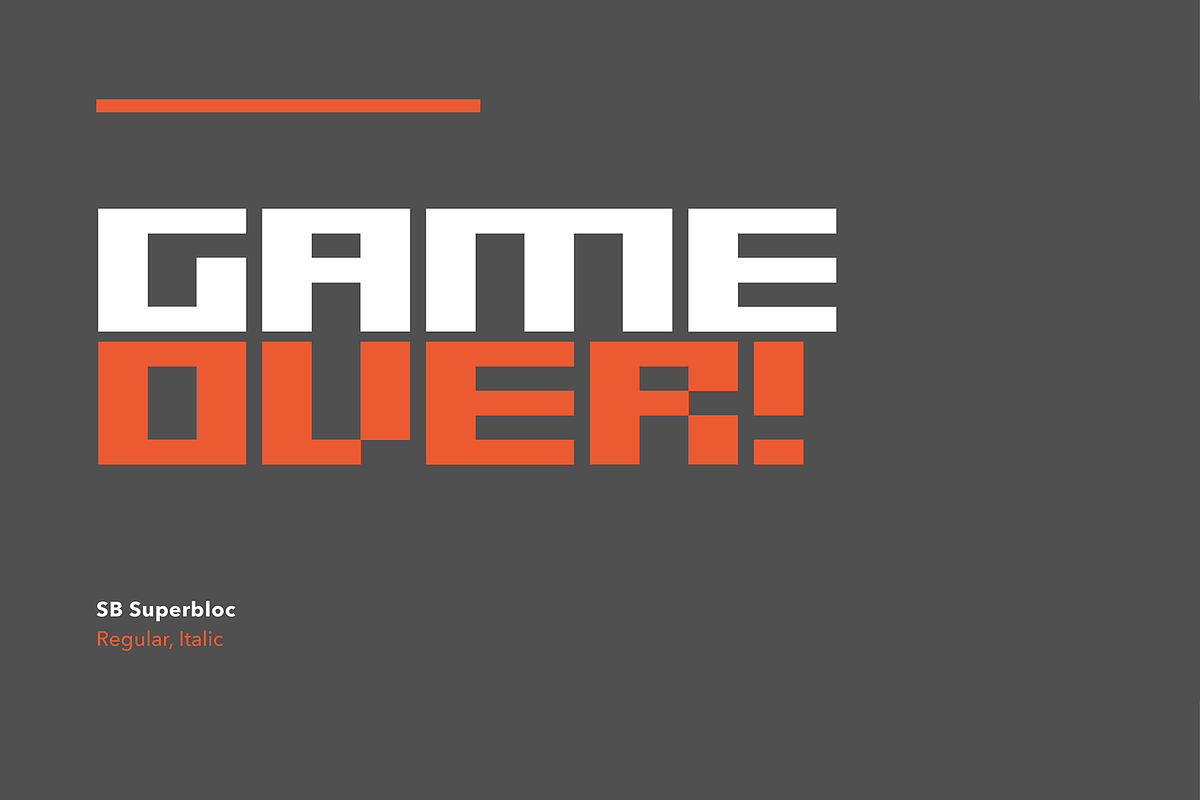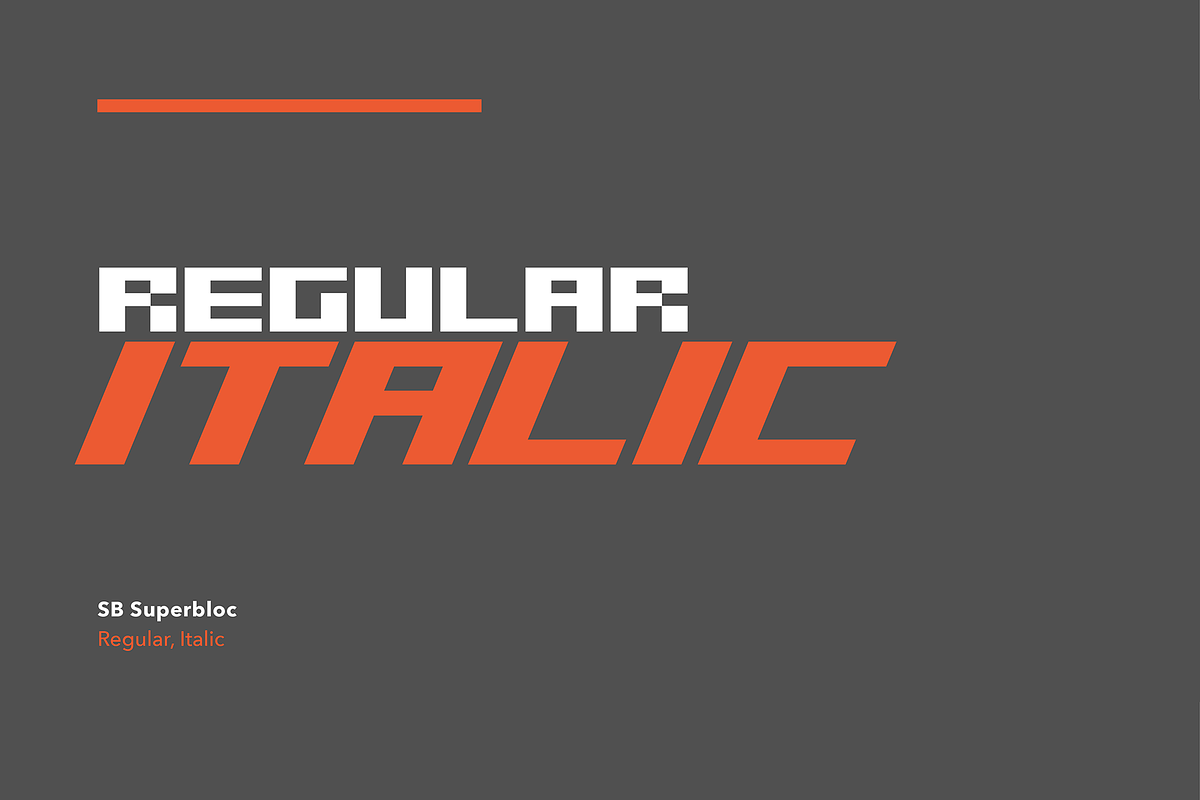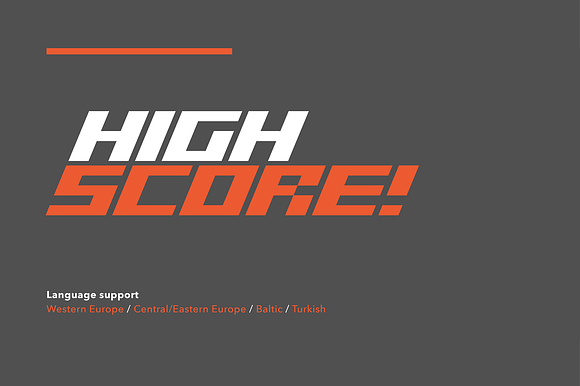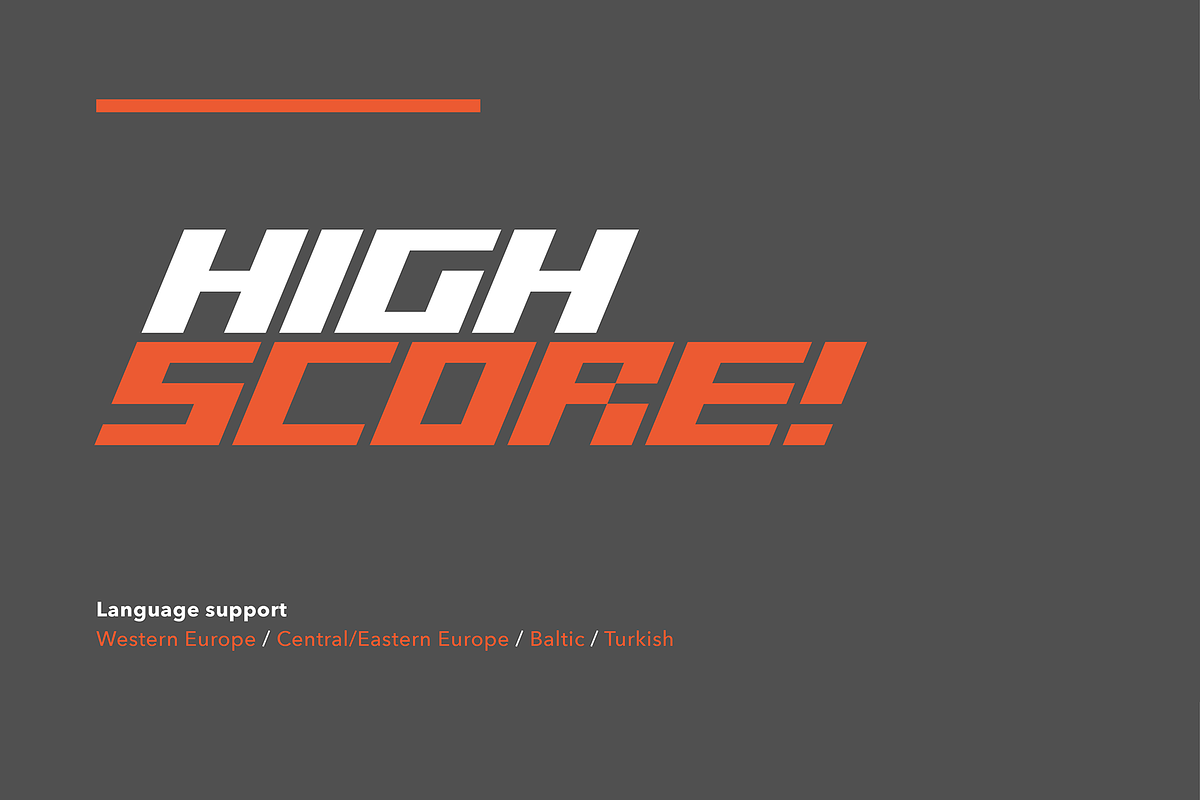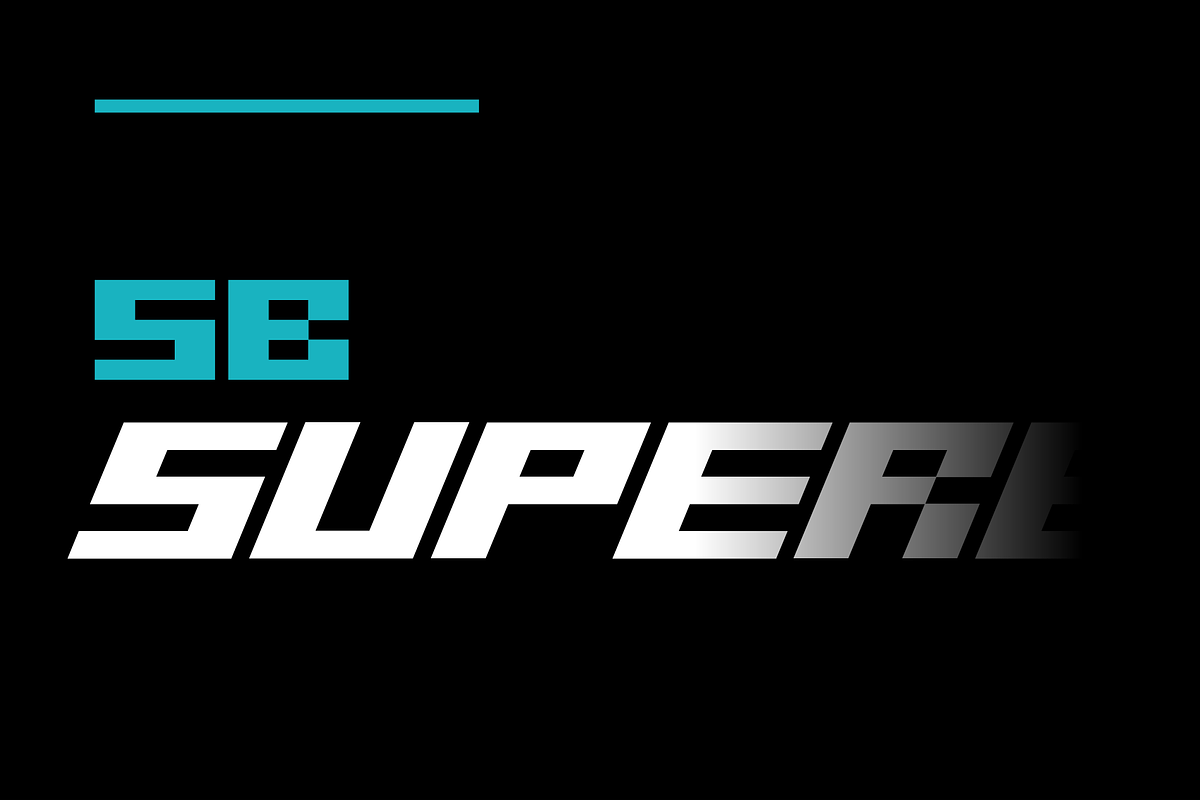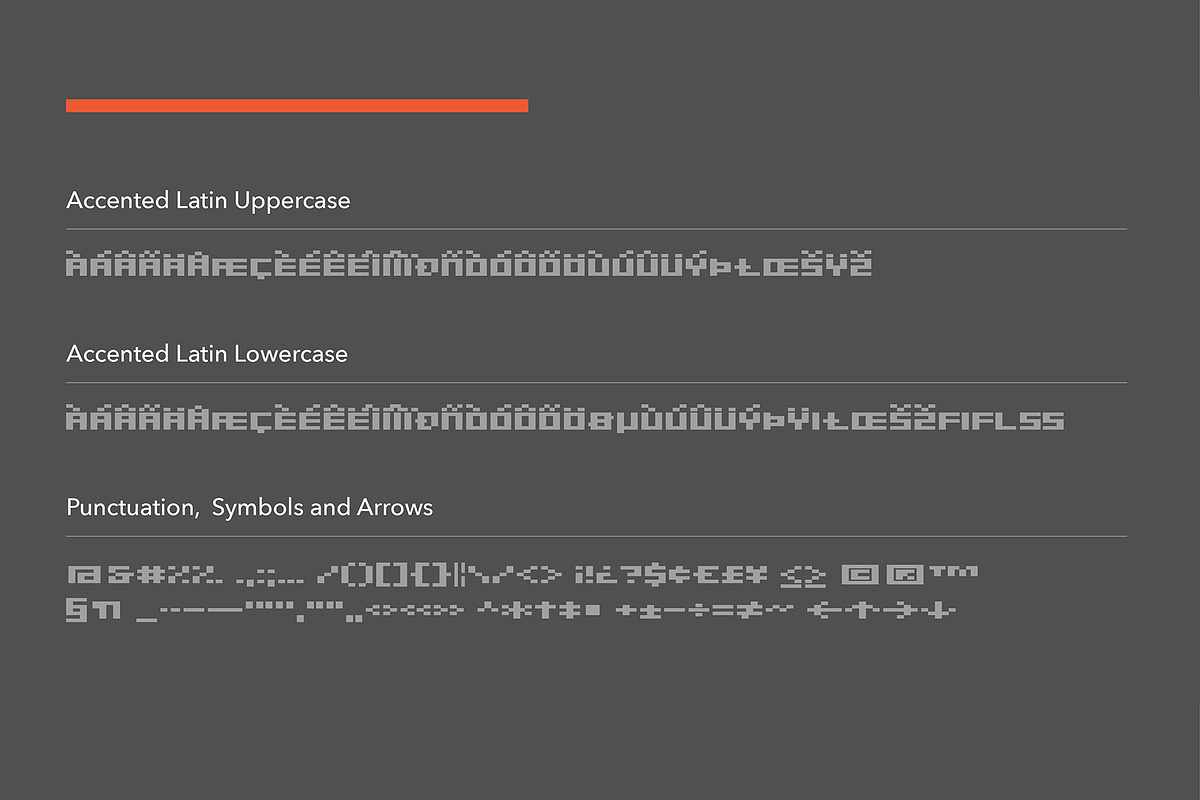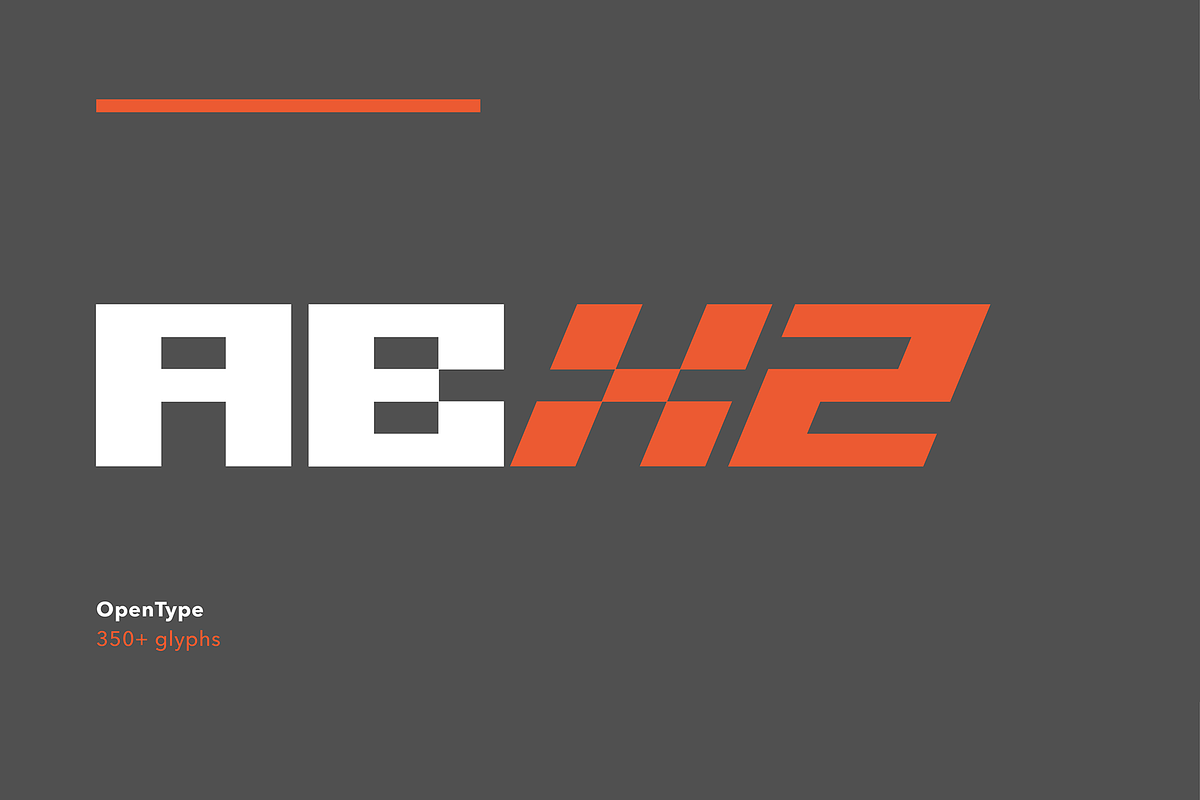
Superbloc Block Font (2 Styles)
Each font contains 392 glyphs.
Supports 35 languages.
SB Superbloc came about as a result of some extreme distortion of SB Websnap, creating a loud, rectangular, block typeface with a cyberpunk, manga-esque flavour. It has an arcade-like feel, retaining the sharp, squared pixel corners of the original pixelfont, with the slanted oblique adding a streamlined, racing element, suggesting speed, and it works well for sport or technology themed projects.
A heavily geometric design, SB Superbloc is designed to pack a punch both on screen and in print. It is impressive as a headline typeface but also works well at smaller sizes thanks to its bold, crisp and angular geometry. SB Superbloc is a capitals only typeface, in line with its bold, brash nature. Its combination of pixel-like features and sharp vectored corners make it simultaneously retro and futuristic.